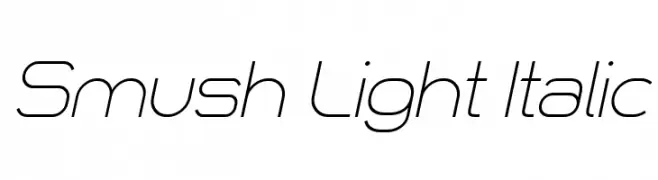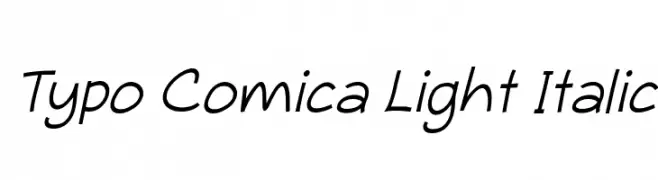
A modern, light sans-serif font with clean lines and excellent readability.
A sleek, modern, light italic sans-serif font with a clean and elegant design.
A modern, light sans-serif font with clean lines and balanced proportions.
A sleek, modern, and elegant italic font with light weight and balanced spacing.
A modern, light sans-serif font with clean lines and rounded edges.
A sleek, elegant, and modern italic font with a light, flowing style.
A light, elegant italic font with smooth, continuous strokes and a modern aesthetic.
A sleek, modern, extra-light italic font with rounded edges and smooth curves.
A sleek, modern, and light italic font with smooth curves and balanced spacing.
A sleek, modern, and elegant extra light italic font with clean lines and excellent legibility.
A modern, light, italic sans-serif font with a sleek and minimalistic design.
A modern, extra light sans-serif font with clean lines and low contrast.
A modern, light sans-serif font with low contrast and excellent readability.
A sleek, modern, light italic sans-serif font with a clean and elegant style.
A modern, light sans-serif font with clean lines and balanced proportions.
A sleek, modern, light italic sans-serif font with excellent readability.
A sleek, modern extra-light italic typeface with low contrast and elegant design.
A modern, light sans-serif font with clean lines and balanced proportions.
A modern, light sans-serif font with clean lines and balanced spacing.
A modern, geometric italic font with an extra light weight and sharp, angular letterforms.